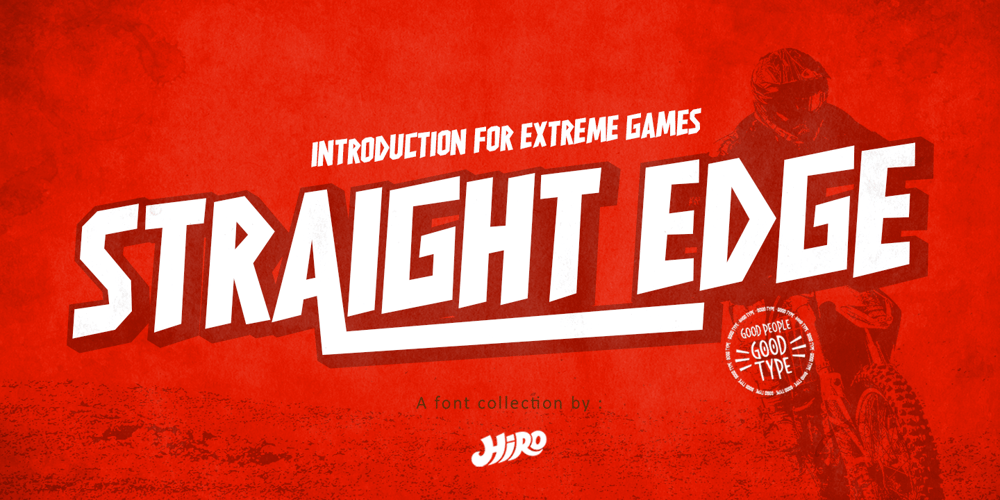
Straight Edge Font Family was designed by Chairul Ashar and published by HIRO.std. Straight Edge contains 5 styles and family package options. STRAIGHT EDGE – Sans Serif Modern Font CombinationSTRAIGHT EDGE is a Modern Classic Font CombinationSTRAIGHT EDGE Regular, STRAIGHT EDGE Extrude, STRAIGHT EDGE Shadow, STRAIGHT EDGE Outline, STRAIGHT EDGE other).STRAIGHT EDGE has more than 637 GlyphsThis Font Template contains strong, cool, catchy and easy to use.FEATURES- Ligatures- Stylistic Alternates- Full Uppercase letters- Numbering and Punctuations- Multilingual Support- Works on PC or Mac- Simple Installation- Support Adobe Illustrator, Adobe Photoshop, Adobe InDesign, also works on Microsoft WordUSE STRAIGHT EDGE works great in any branding, logos, magazines, films, apparel, poster, and of course your board. The different weights give you full range to explore a whole host of applications, while the outlined fonts give a real modern feel to any project.